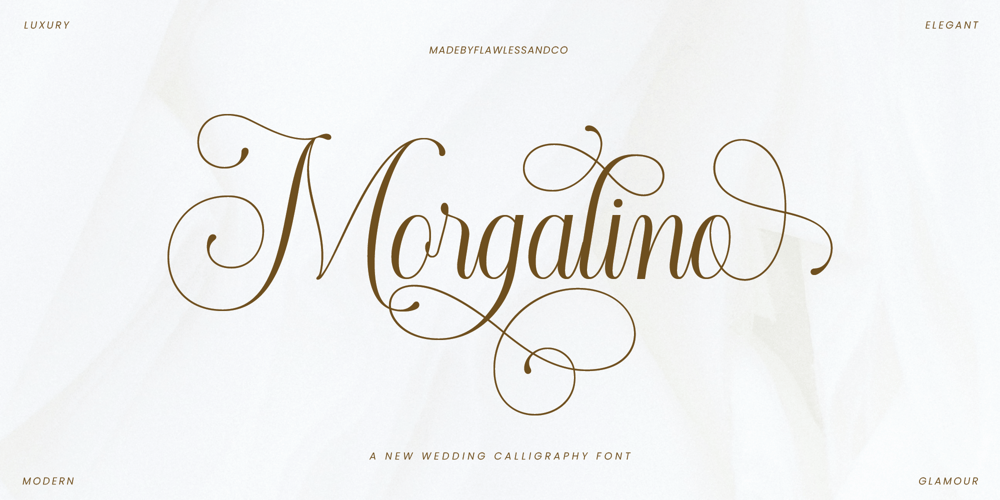
Morgalino Font Family was designed by Achmad Yani and published by Flawlessandco. Morgalino contains 1 styles and family package options. Morgalino – Script Wedding Font, Calligraphy Font, Wedding Font, Script Font, Invitation Font, Modern Font, Canva Font, Cricut Font, Procreate Font, Cursive Font, Branding Font, Logo FontIntroducing Morgalino, a captivating script font designed to add a touch of elegance and timeless beauty to your wedding invitations, stationery, and other special occasion materials. Inspired by the graceful flow of calligraphy, Morgalino exudes a romantic and sophisticated ambiance, perfectly complementing the momentous occasion of your wedding.There’s some connected letters and some alternates that suitable for any graphic designs such as branding materials, t-shirt, print, business cards, logo, poster, t-shirt, photography, quotes .etcThis font support for some multilingual. Also contains uppercase A-Z and lowercase a-z, alternate character, numbers 0-9, and some punctuation.If you need help, just write me! Thanks so much for checking out my shop!